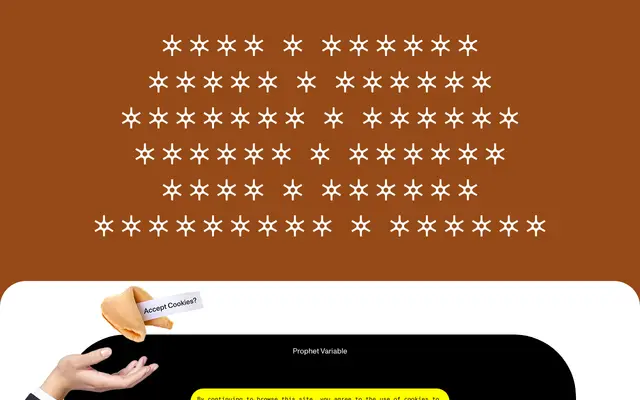
Prophet
Dinamo Typefaces · Johannes Breyer, Fabian Harb, Erkin Karamemet · 2016
A humanist sans by Dinamo co-founders Johannes Breyer and Fabian Harb, drawing on Joseph Churchward's Georgina to marry calligraphic curves with a clean, machine-like structure.
Released in 2016, Prophet was the first typeface Breyer and Harb worked on together, making it something of a founding document for Dinamo as a studio. Six weights from Thin to Extrabold each carry a corresponding italic, with a variable font also available. The character set spans Latin Extended and Greek, and features include alternate lowercase 'a' and tabular figures. Seen in use across editorial, art publishing and independent fashion contexts.
Prophet bridges calligraphic warmth drawn from Joseph Churchward's Georgina with a clean, mechanical structure, placing it firmly in the humanist sans category with a distinctive hand-influenced quality.